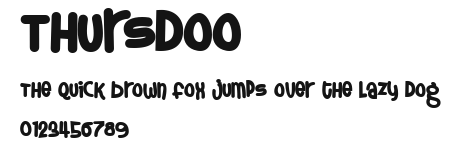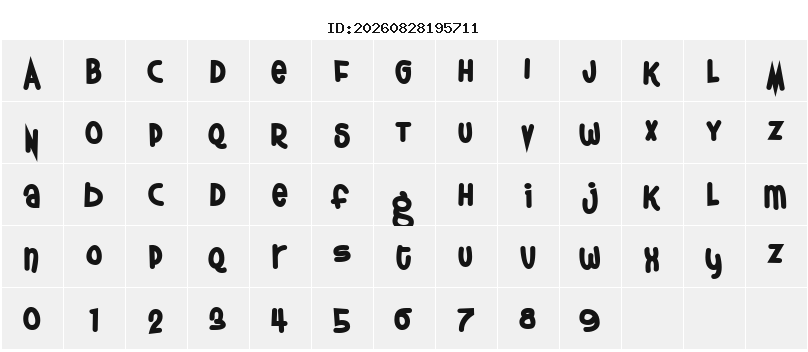
• Font Name: Thursdoo
• Full Font Name: Thursdoo
About Thursdoo.ttf
Thursdoo.ttf is a modern, elegant sans-serif font designed for ultimate readability and visual harmony. Perfect for branding, headlines, web design, and print materials.